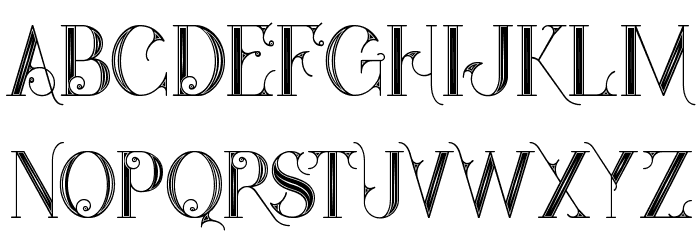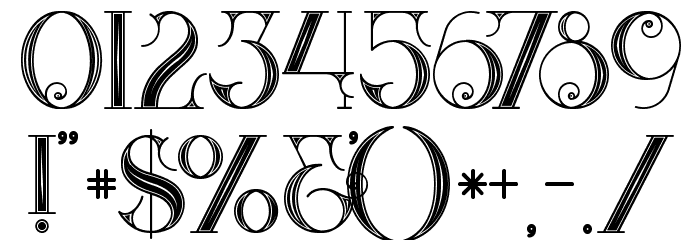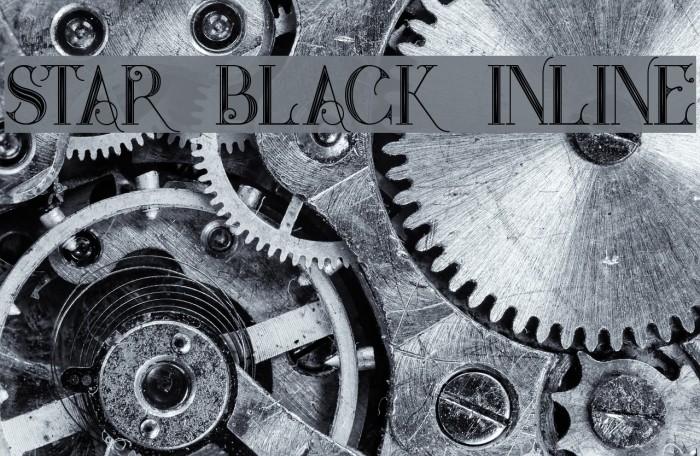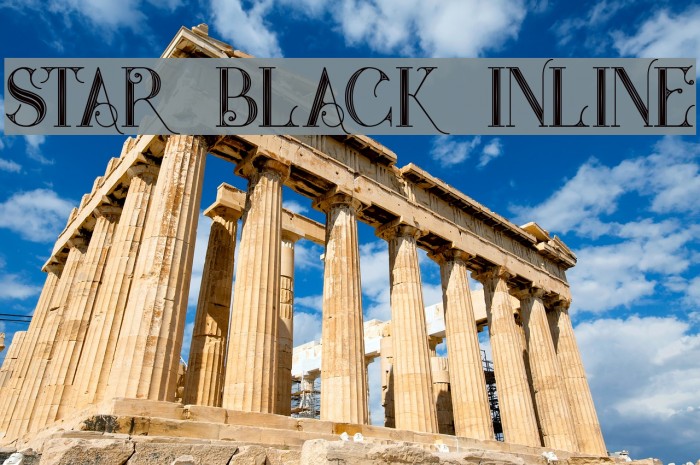
Star Black Inline Font
This font features an elaborate and decorative style with intricate inline detailing. The characters are adorned with swirling embellishments that give it a unique, ornate appearance. The uppercase letters are particularly striking, with each character featuring a combination of bold strokes and delicate curves. The numbers and special characters maintain this decorative theme, making the font suitable for artistic and creative projects. The overall design is reminiscent of vintage typography, yet it maintains a modern flair through its clean lines and structured form.
An ornate and decorative font with intricate inline detailing and swirling embellishments.
- Proposed Projects: Ideal for use in wedding invitations, luxury branding, artistic posters, and decorative headlines.
- Overall Style: Vintage
- Use Case: Headlines, Logos, Decorative text